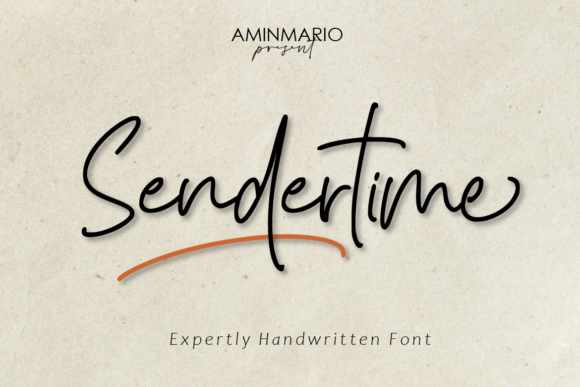
Introducing Sendertime Script - An Enchanting Journey Through Your Digital Expressions
Embrace the allure of Sendertime, a captivating script font family meticulously designed to elevate your digital communications with a unique feel and stunning impact. Inspired by the elegance of handwritten notes, Sendertime exudes a touch of luxury that adds a personal touch to all your creative endeavors.
Immerse yourself in a realm of sophistication with Sendertime, the perfect font for crafting personalized digital signatures that reflect your individuality. Its beautiful light strokes and graceful curves bring a touch of elegance to every email, document, or digital artwork, transforming your messages into captivating expressions of your unique style.
With Sendertime, you can effortlessly create stunning visuals that demand attention. Whether designing logos, branding materials, or social media graphics, Sendertime's versatility and fluidity bring a touch of magic to your creations. Its rich character set, including numerous glyphs and ligatures, empowers you to unleash your creativity and explore endless possibilities.
Unlock the secrets of digital expression with Sendertime, the font that unlocks a world of possibilities. Whether you're a seasoned designer or a creative enthusiast, Sendertime's user-friendly PUA encoding ensures effortless access to all its captivating features. Unleash your creativity and embark on a journey of digital artistry with Sendertime as your trusted companion.